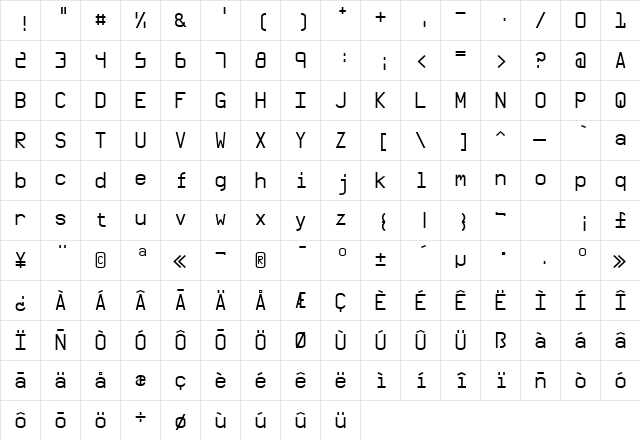
Bowman Normal Font Preview
Bowman Normal
Bowman Normal Font Details
| Foundry | hector |
| Designer | hector |
Design Context for Bowman Typeface
Bowman is a composed and adaptable typeface that performs quietly and consistently across a wide range of design contexts.